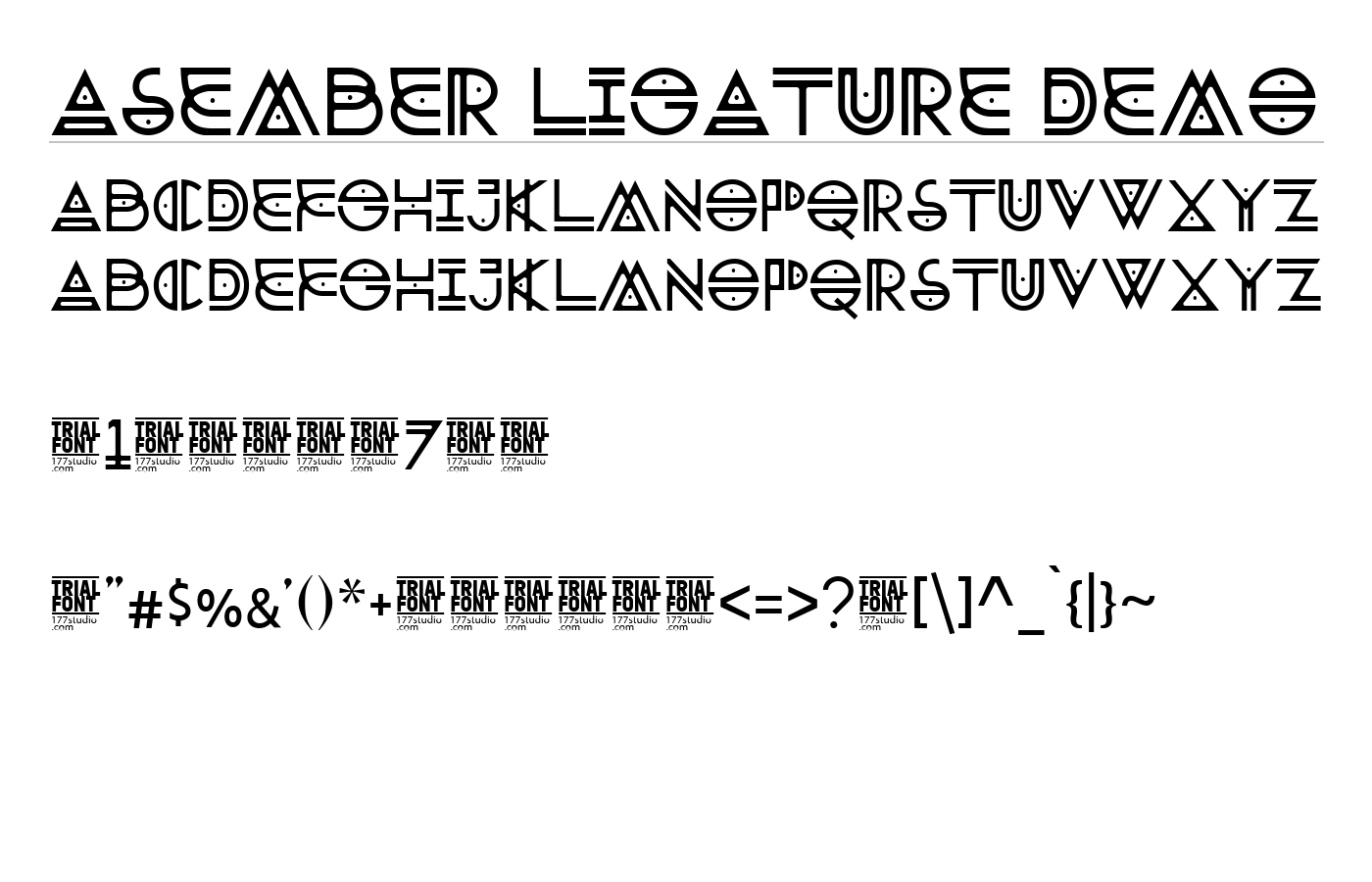
Asember Ligature Demo is a distinctive decorative sans serif font featuring uppercase letters with bold geometric shapes and playful ligatures. Its design blends sharp lines and stylized dots, creating an artistic, almost tribal feel that suits creative branding, posters, and eye-catching headlines. This font works best where a unique, modern, and artistic expression is desired to stand out with a futuristic and unconventional vibe.
Asember Ligature Demo Font
About Asember Ligature Demo Font